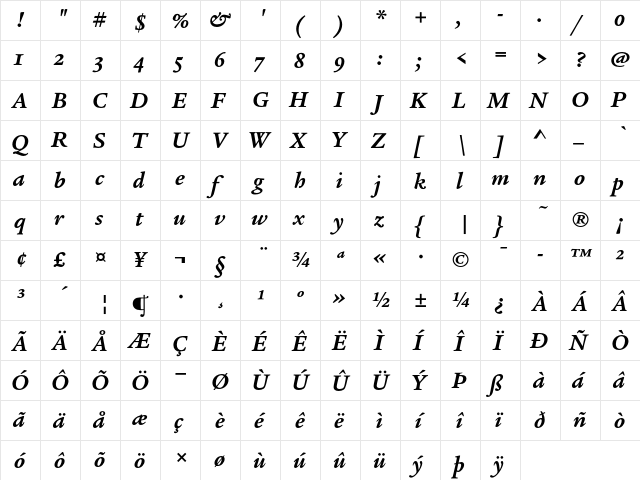
Legacy Serif ITC Bold Italic OS Font Preview
Design Context for Legacy Serif ITC Typeface
Legacy Serif ITC brings classic typographic sensibility to the table — its serifs and measured letterforms reflect centuries of print heritage. The dynamic lean of this cut emphasises speed and emphasis in any layout. The heavy weight commands attention and anchors typographic hierarchies.
Pro Tip: Use Legacy Serif ITC for editorial body copy and considered headline work. Pair with a neutral sans for UI elements or captions to create a classic hierarchy.